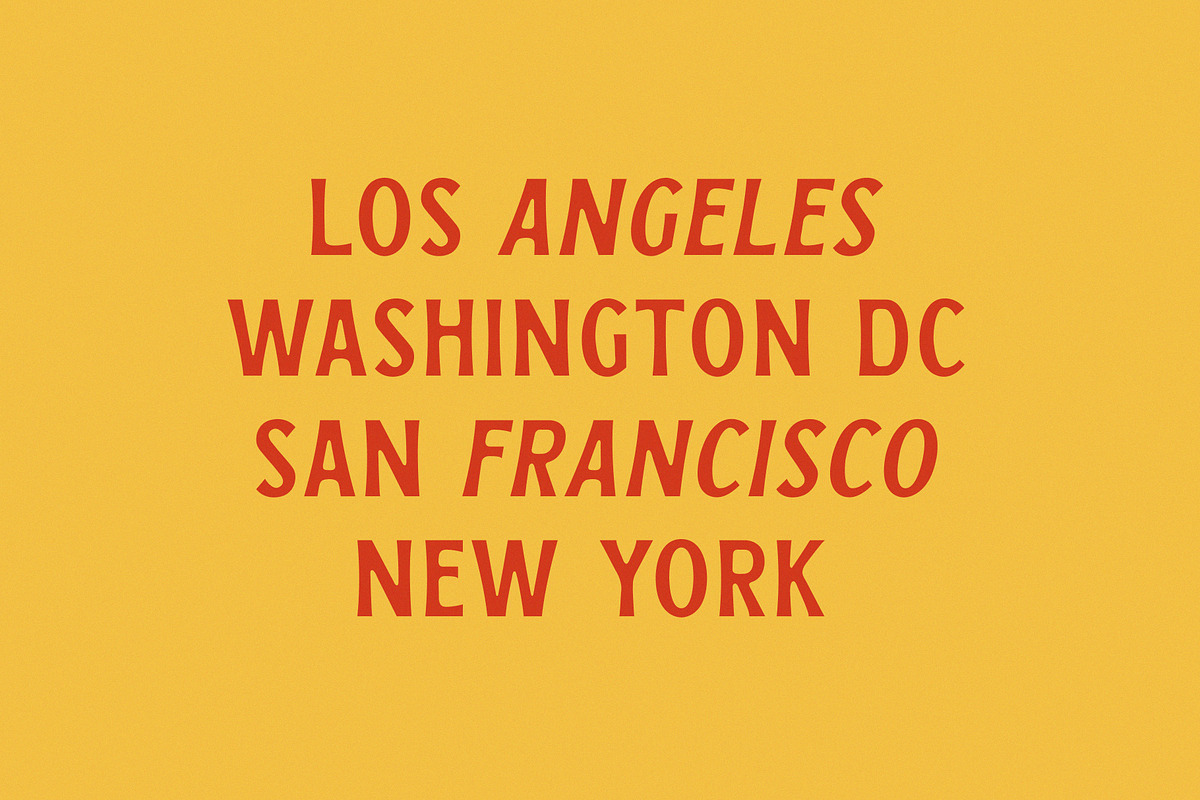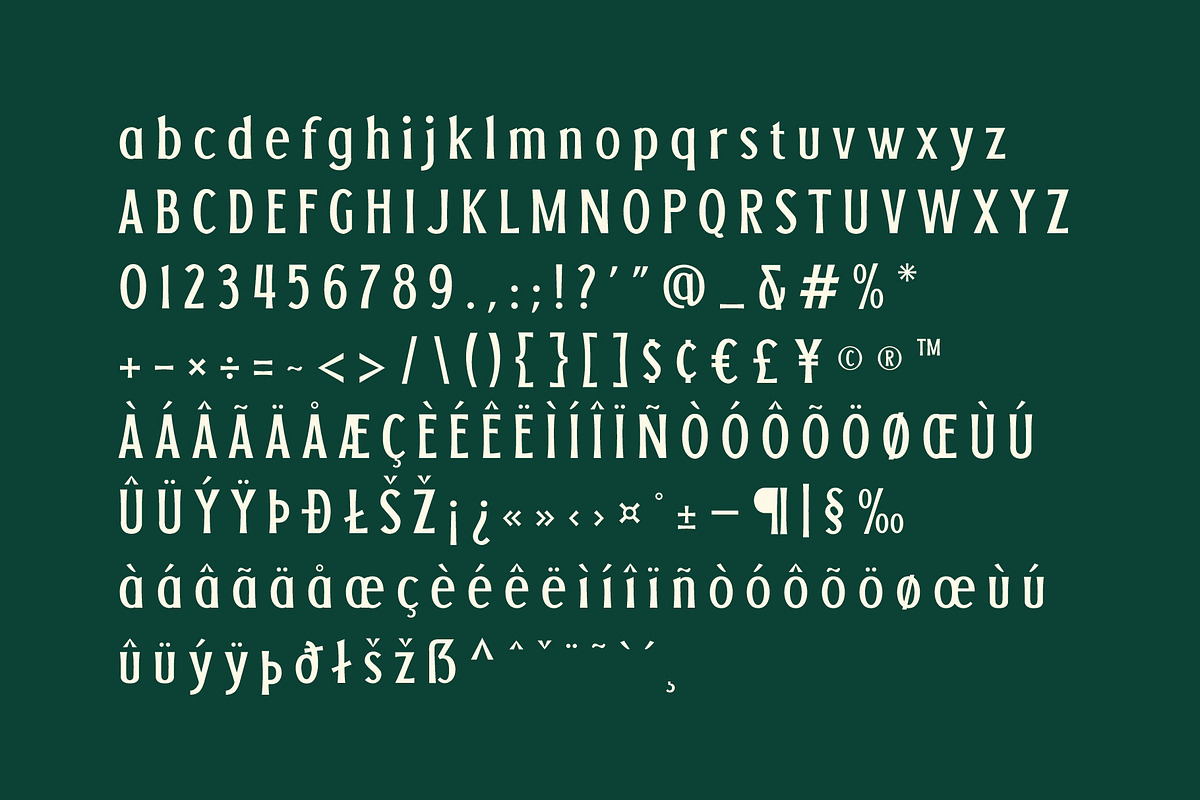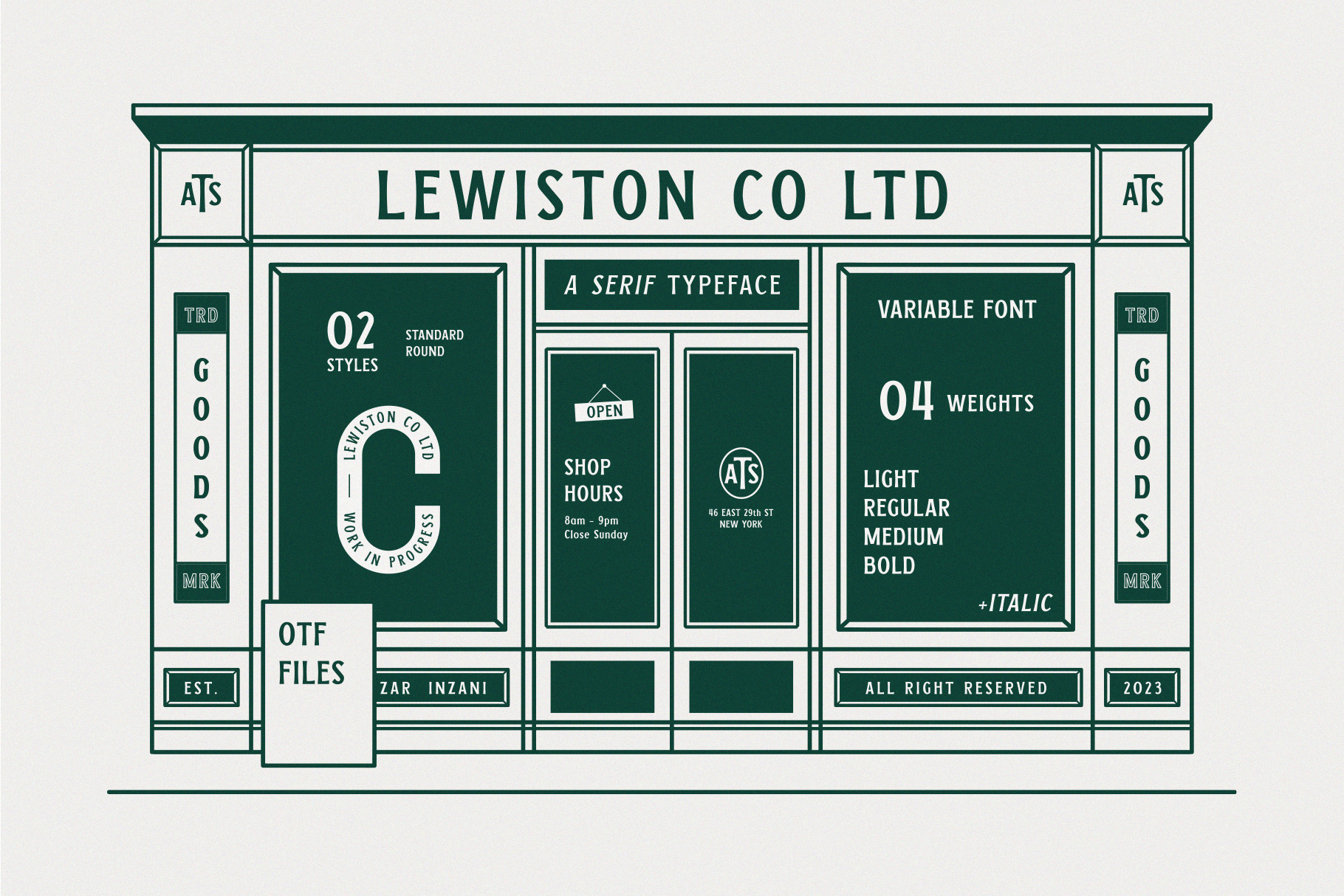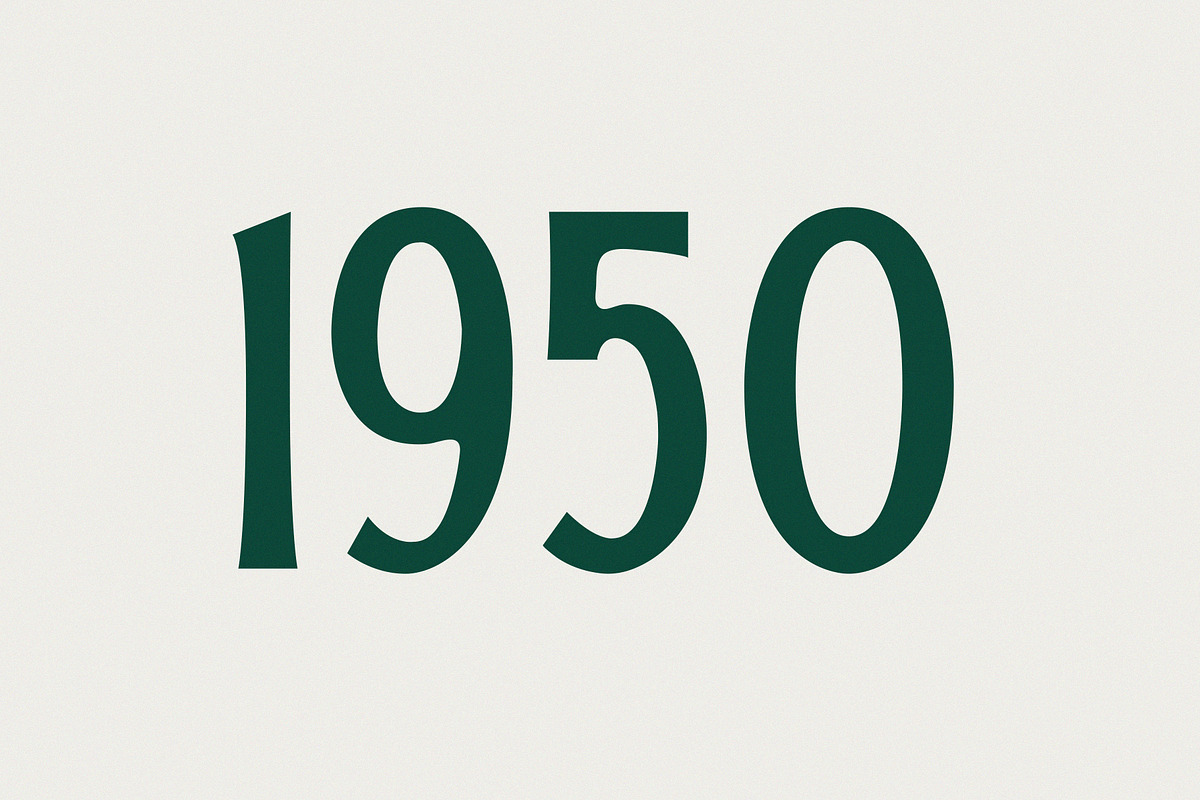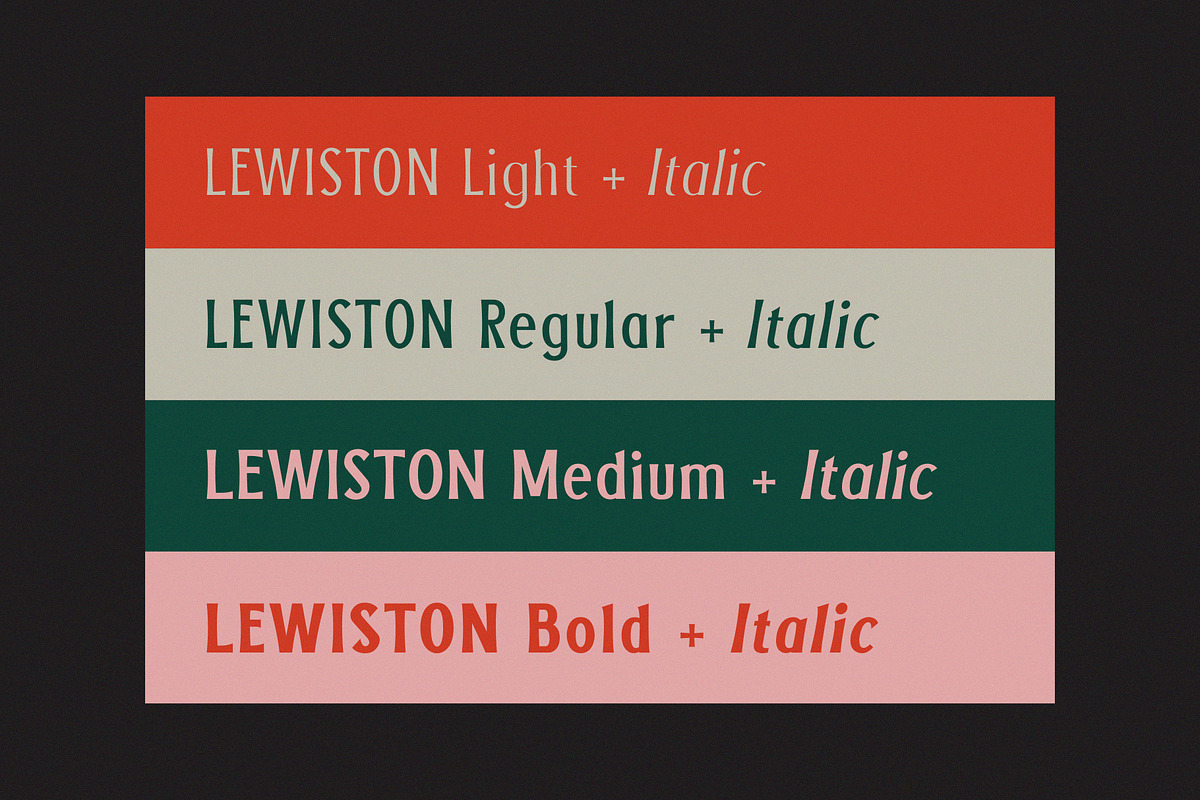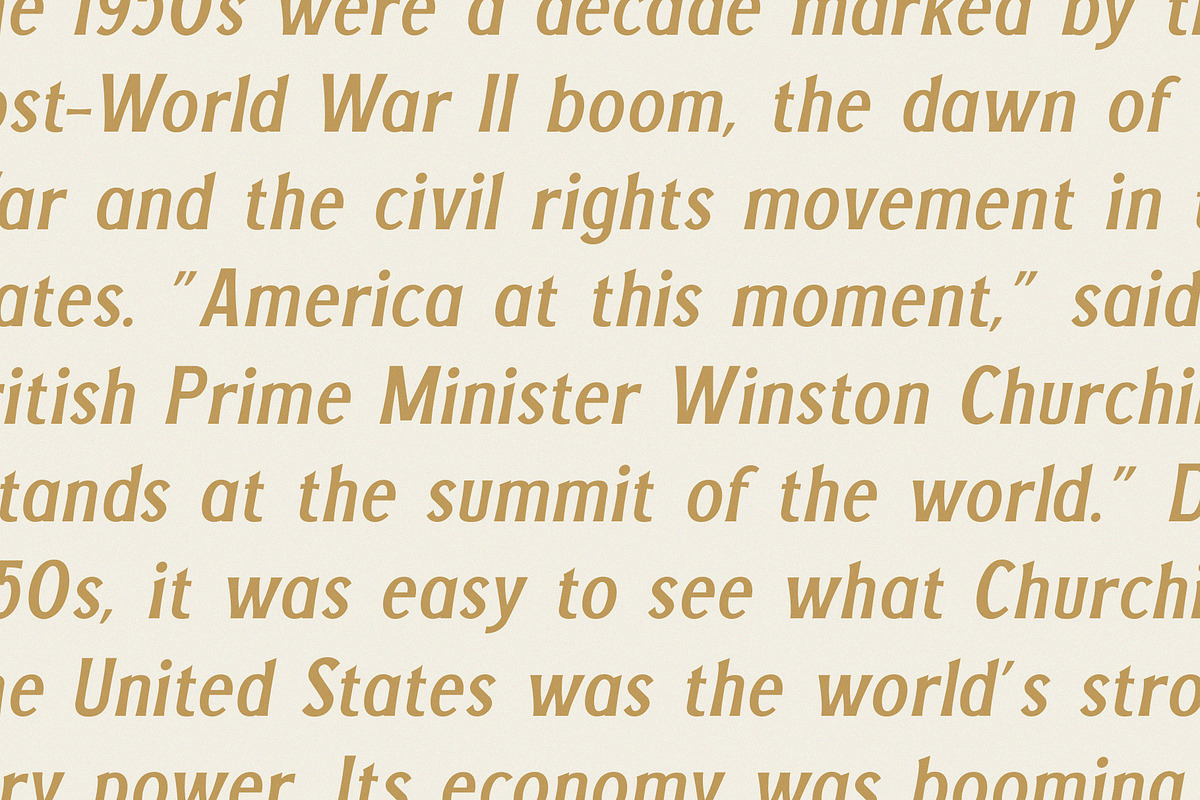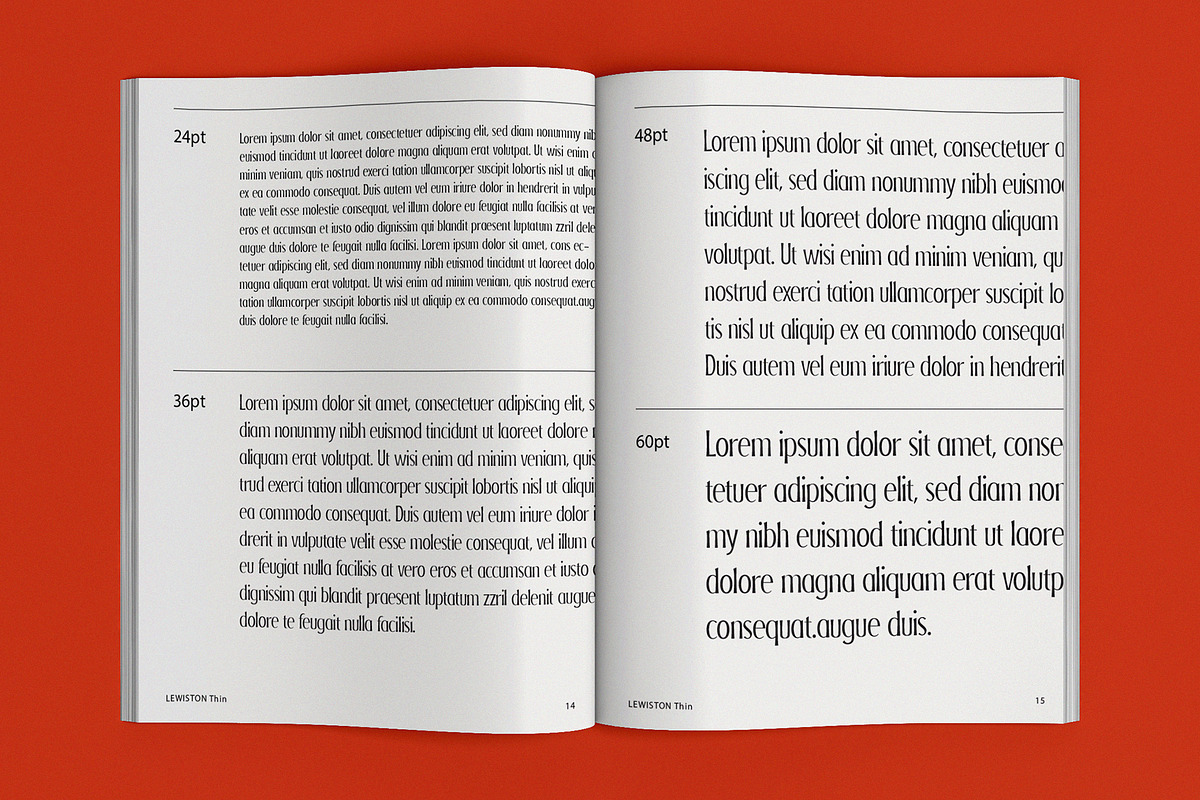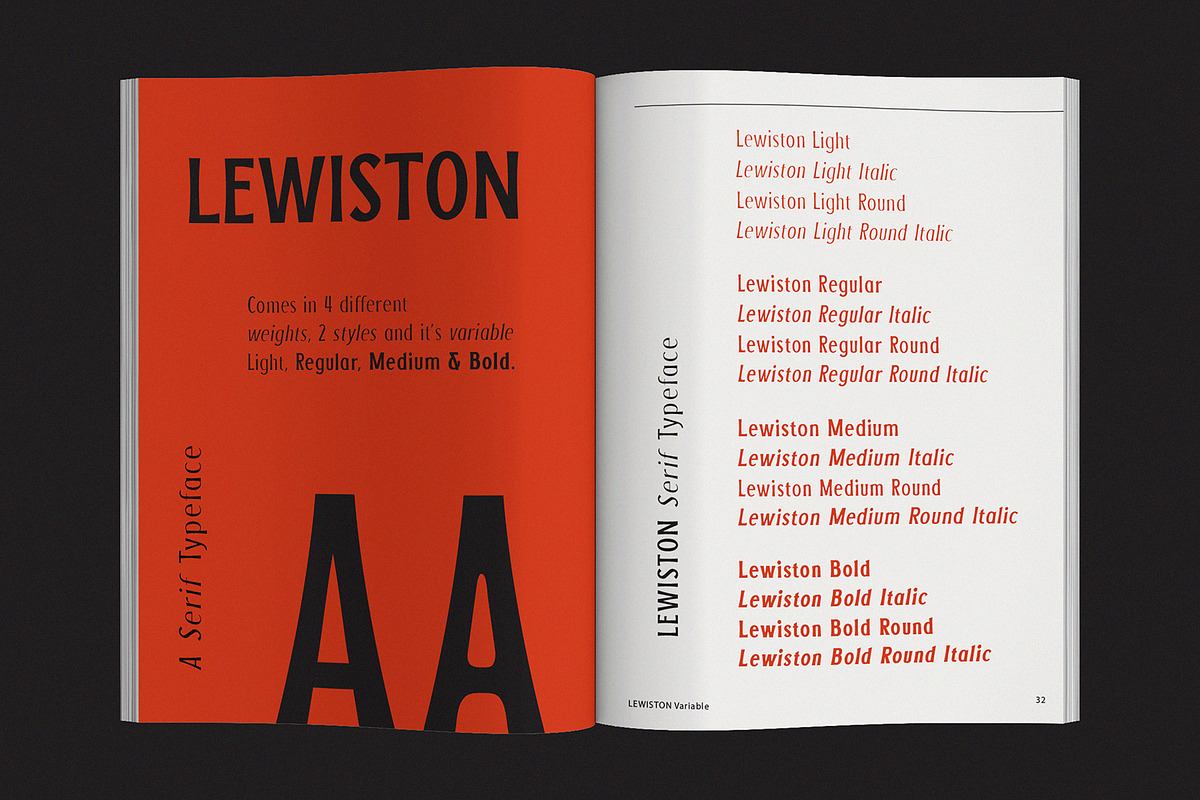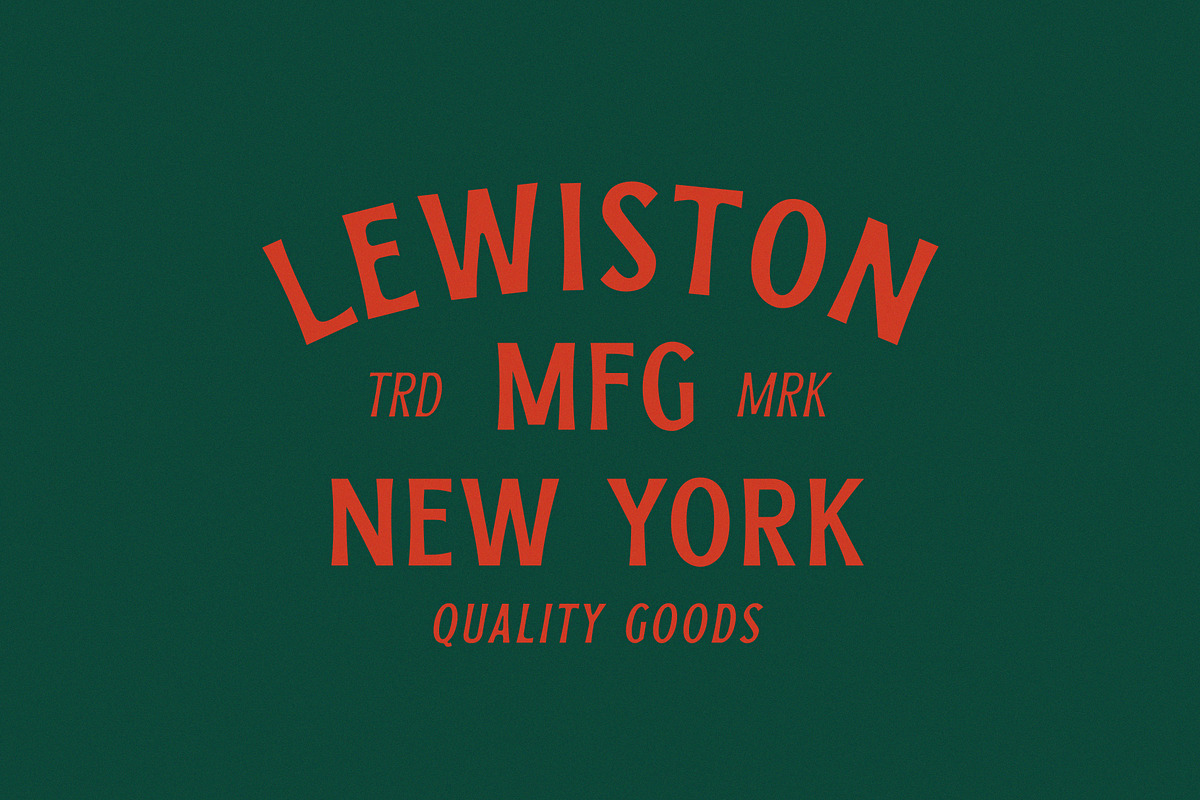
LEWISTON: A Serif Typeface
Introducing, LEWISTON -A Serif Typeface
A serif typeface inspired old signage designed with various typeface styles. perfect for use typographic badges, logos, branding, posters, prints, signage, or more.
Lewiston comes with 2 styles and variable fonts, light, regular, medium and bold + italic version.